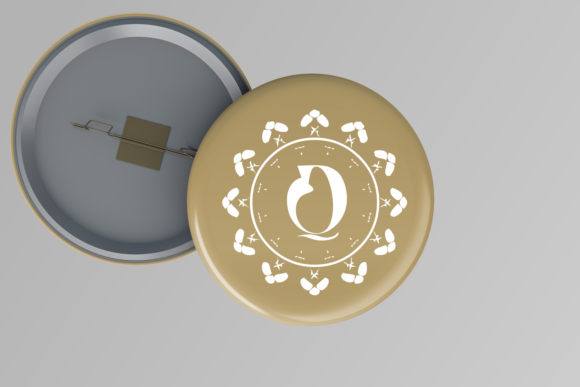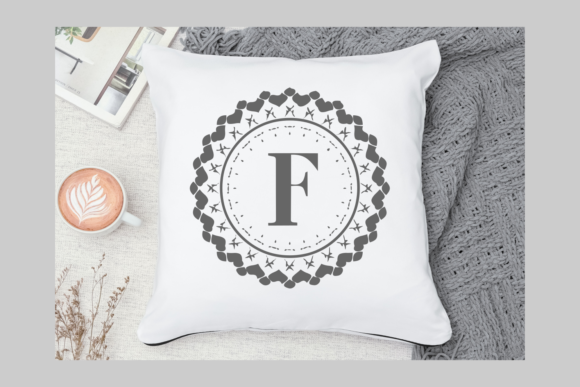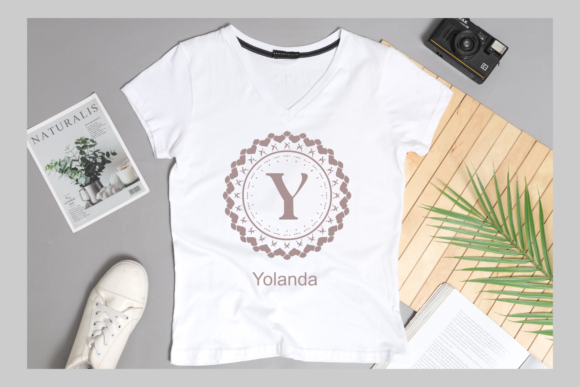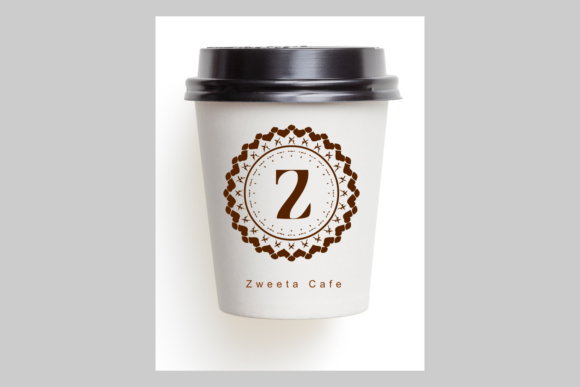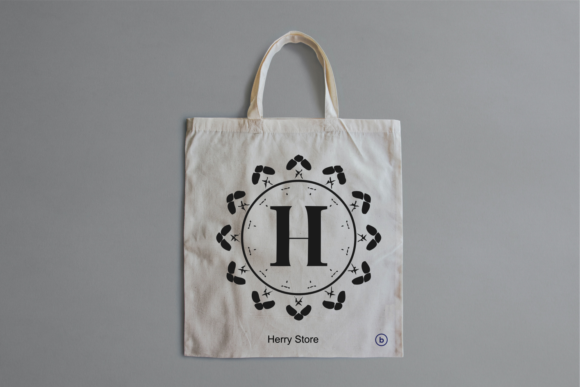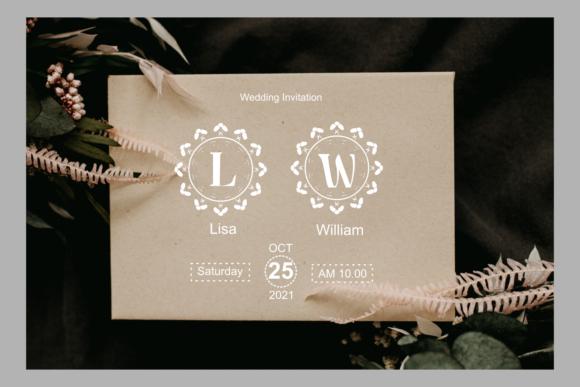
Introduction to Monogram Ninelia Font
Have you ever been working on a creative project, pouring your heart and soul into every detail, only to realize that the perfect font is missing? This is exactly what happened to me when I stumbled upon the Monogram Ninelia Font. As I began to explore its intricacies, I was captivated by its beauty and versatility.
With its highly detailed and elegant design, the Monogram Ninelia Font is a game-changer for any designer looking to elevate their work. Whether you’re crafting love letters, wedding invitations, or any other design project, this font is sure to add a touch of sophistication and charm. Its transparent background and high-quality design make it a valuable resource for any creative endeavor.
Key Features of Monogram Ninelia Font
- Unique Monogram design suitable for creative projects and personal branding.
- Includes transparent background for easy customization and versatility.
- Designed with high-resolution graphics for crisp and clear display.
- Perfect for use in various creative projects, such as logos, business cards, and invitations.
- Comes in a range of sizes, making it suitable for use in various design contexts.
Honest Review: Monogram Ninelia Font
I recently stumbled upon the Monogram Ninelia Font, and I must say it’s a great addition to any design library. The font is perfect for creating a high-quality, creative project that requires a touch of elegance.
- ✨ Beautifully designed monogram style that adds a personal touch to any design
- ✨ Comes in a range of styles, making it versatile for various design projects
- ✨ Can be used with a transparent background, giving your design a clean and modern look
- ⚠️ Limited font styles may not be suitable for more complex design projects
- ⚠️ Some users may find the font too ornate for certain design applications
Overall, I’m impressed with the Monogram Ninelia Font. It’s a great choice for designers who want to add a touch of sophistication to their creative projects. While it may have some limitations, it’s definitely a high-quality design resource that’s worth exploring.
How to Use Monogram Ninelia Font
The Monogram Ninelia Font is a high-quality design resource that offers a unique and elegant touch to any creative project. With its transparent background, it’s perfect for creating custom designs that pop.
To get the most out of the Monogram Ninelia Font, try the following tips:
- Use the font in combination with other design elements, such as images and shapes, to create a visually appealing design.
- Take advantage of the font’s transparent background to create custom designs that blend seamlessly with your background.
The Monogram Ninelia Font is perfect for a variety of creative projects, including:
- Business cards and marketing materials.
- Custom graphics and illustrations.